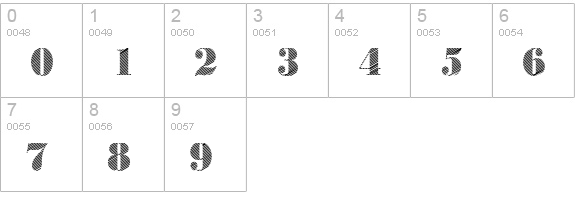
BodoniRising2-Regular Font Details
BodoniRising2-Regular is the standard, neutral variant in the BodoniRising2 typeface family \xE2\x80\x94 well suited to general body text, paragraphs, and standard typographic work.
BodoniRising2-Regular is a classic and elegant font that embodies timelessness and sophistication. With its clean lines and refined curves, this typeface exudes a sense of luxury and professionalism. Perfect for projects that require a touch of elegance and style, BodoniRising2-Regular is a versatile font that can be used for various design purposes. One of the best features of BodoniRising2-Regular is that it is free to download at FontsMarket.com. This means that you can easily access this beautiful font without any cost, making it a valuable resource for designers, creatives, and anyone who appreciates high-quality typography. Whether you are working on a branding project, editorial design, or any creative endeavor, BodoniRising2-Regular is a great choice to elevate your work and make a lasting impression. Download this exquisite font today and add a touch of sophistication to your projects.